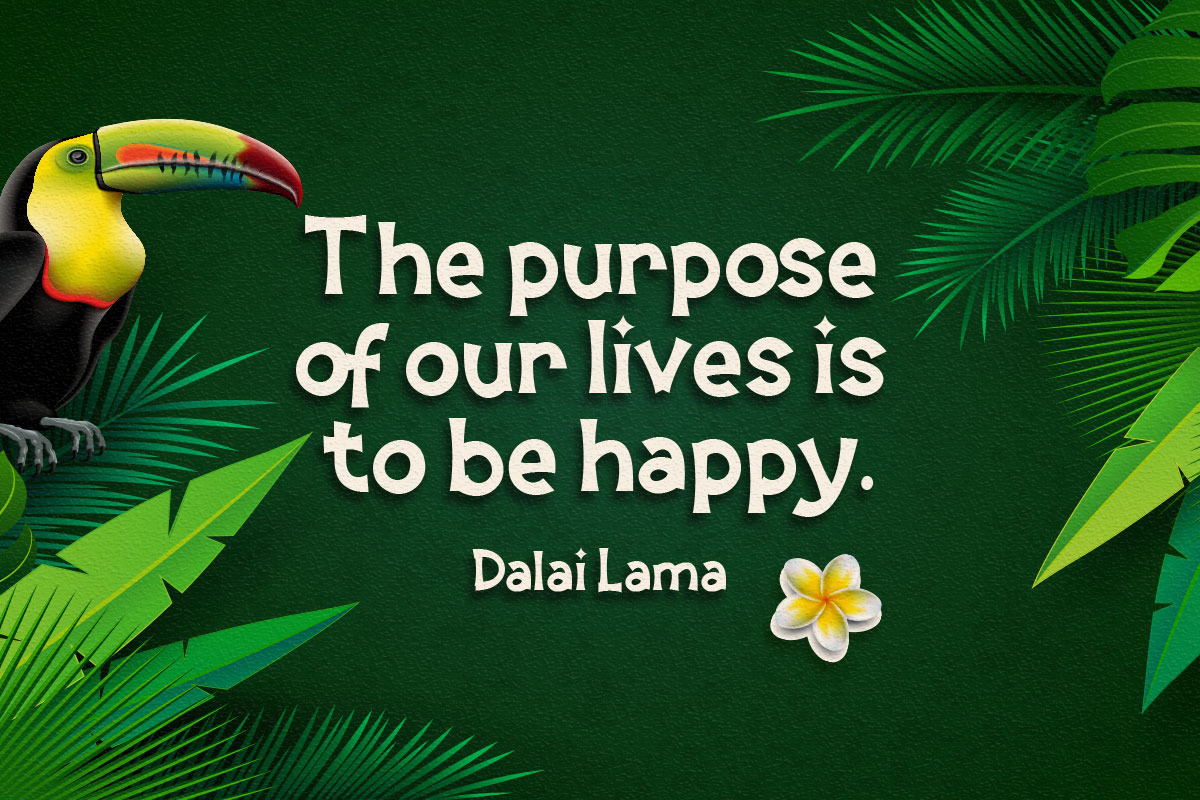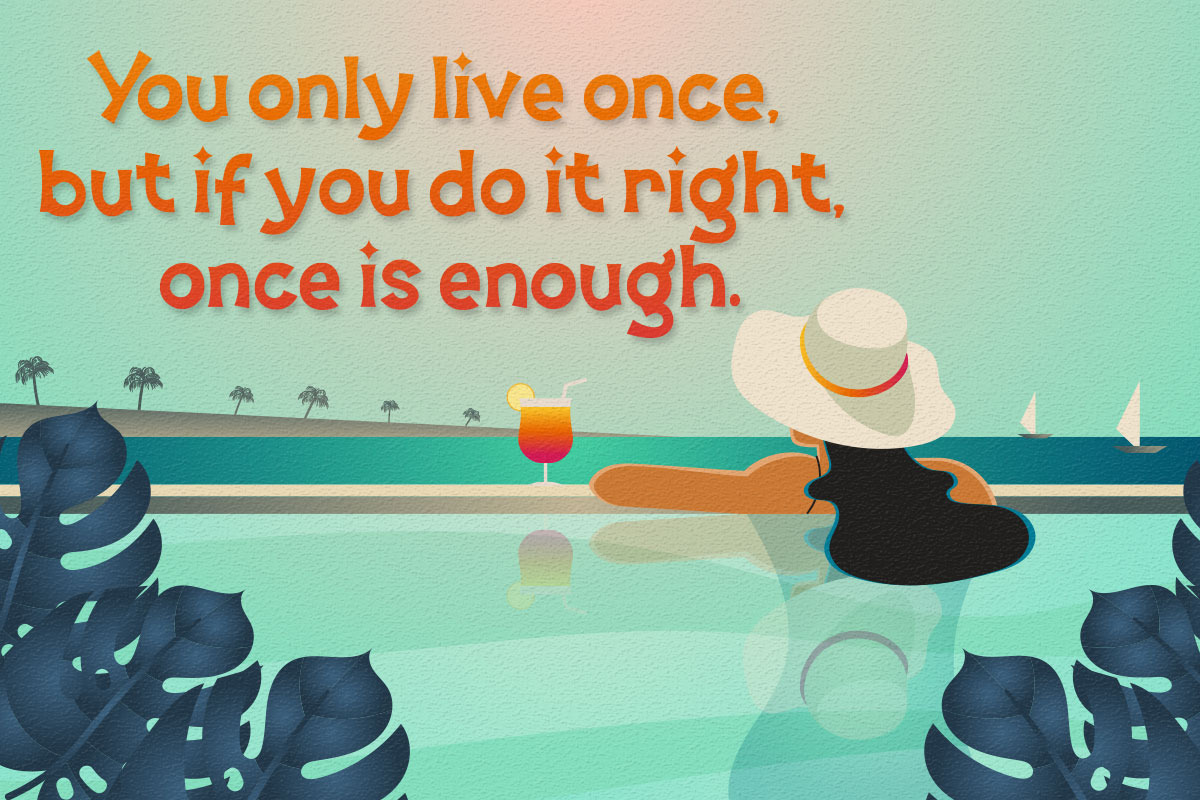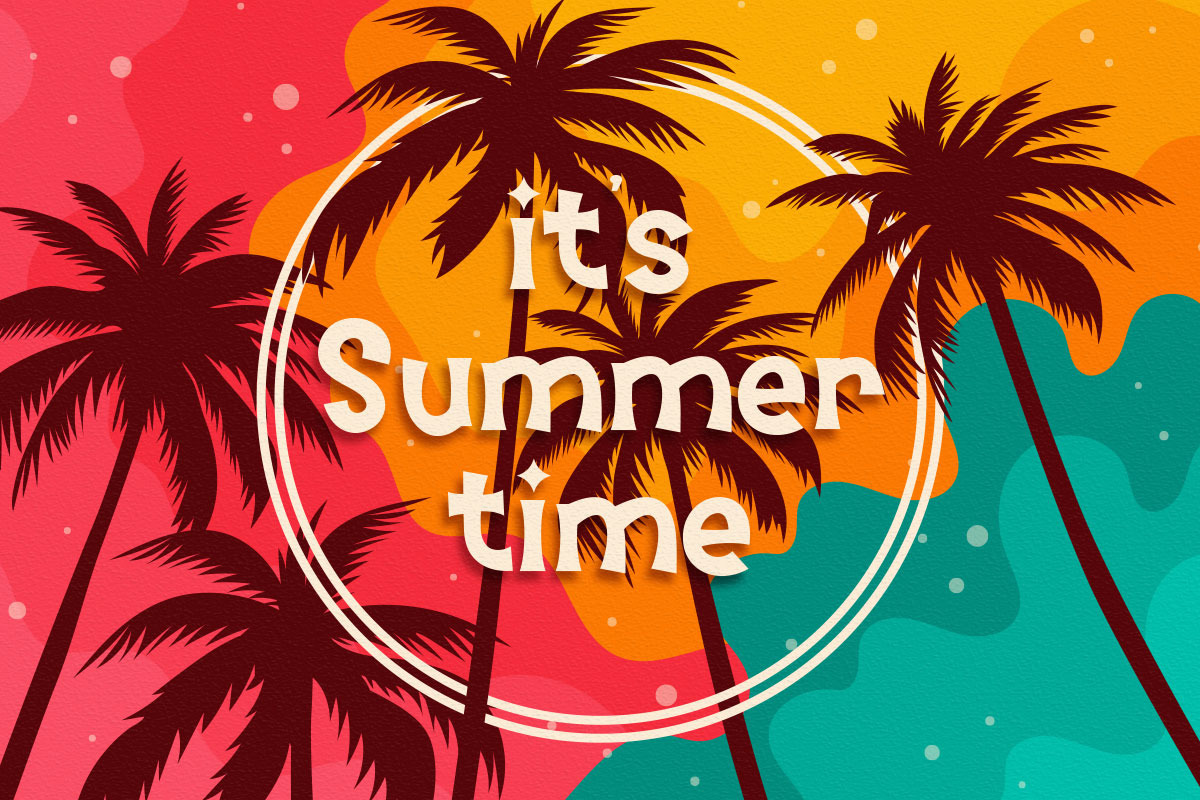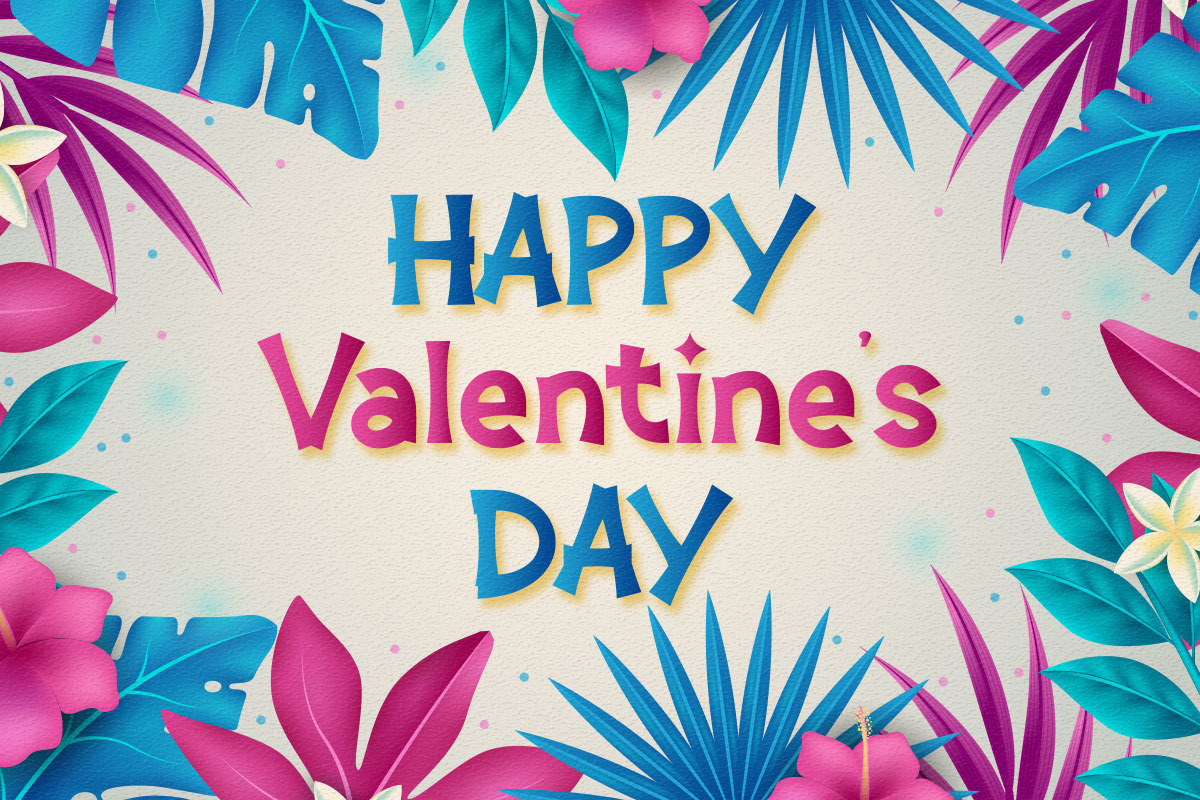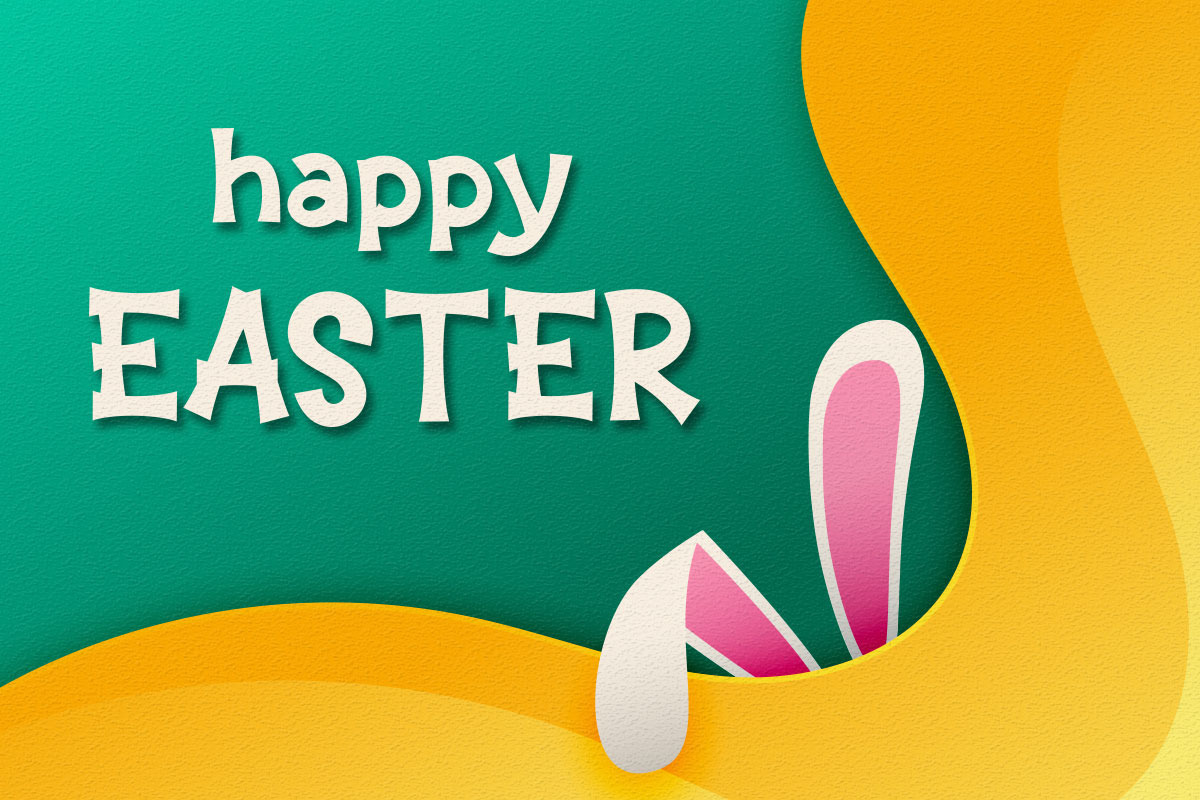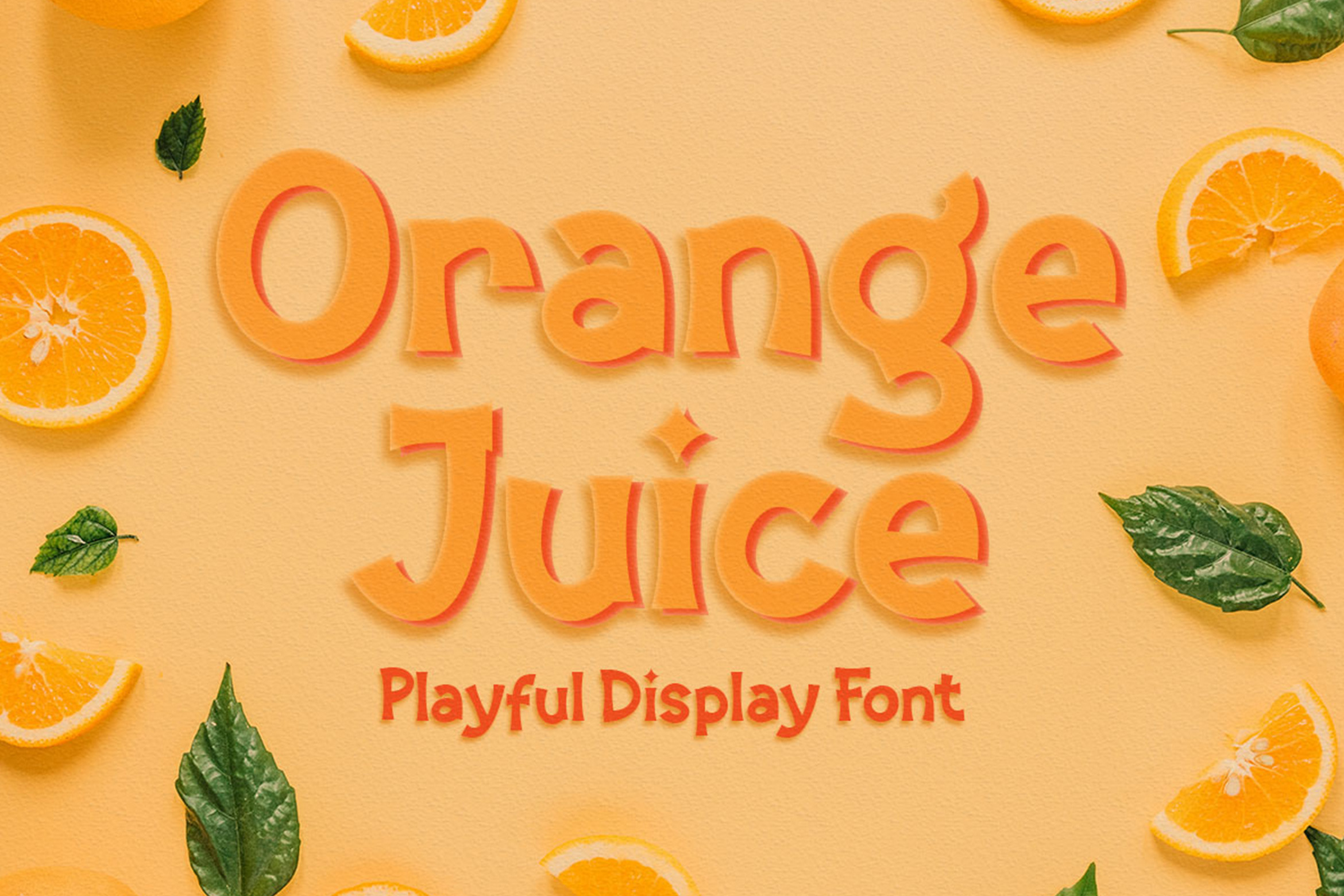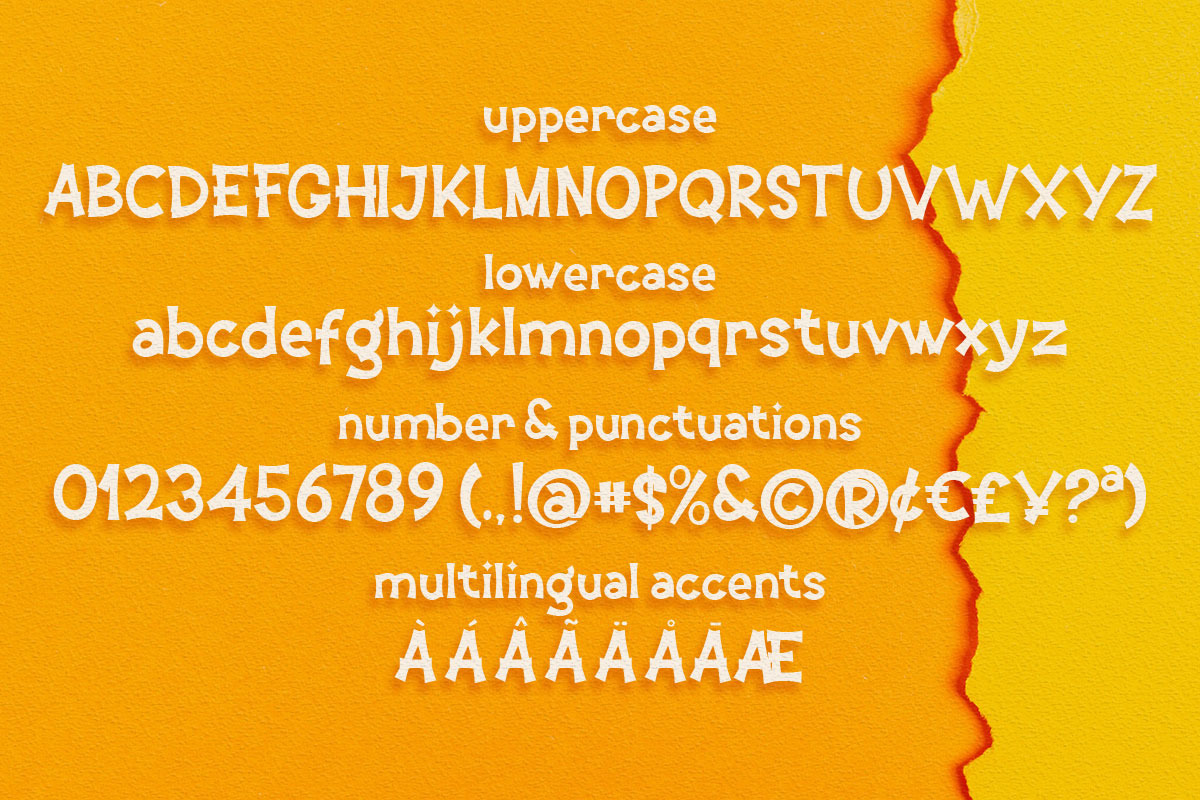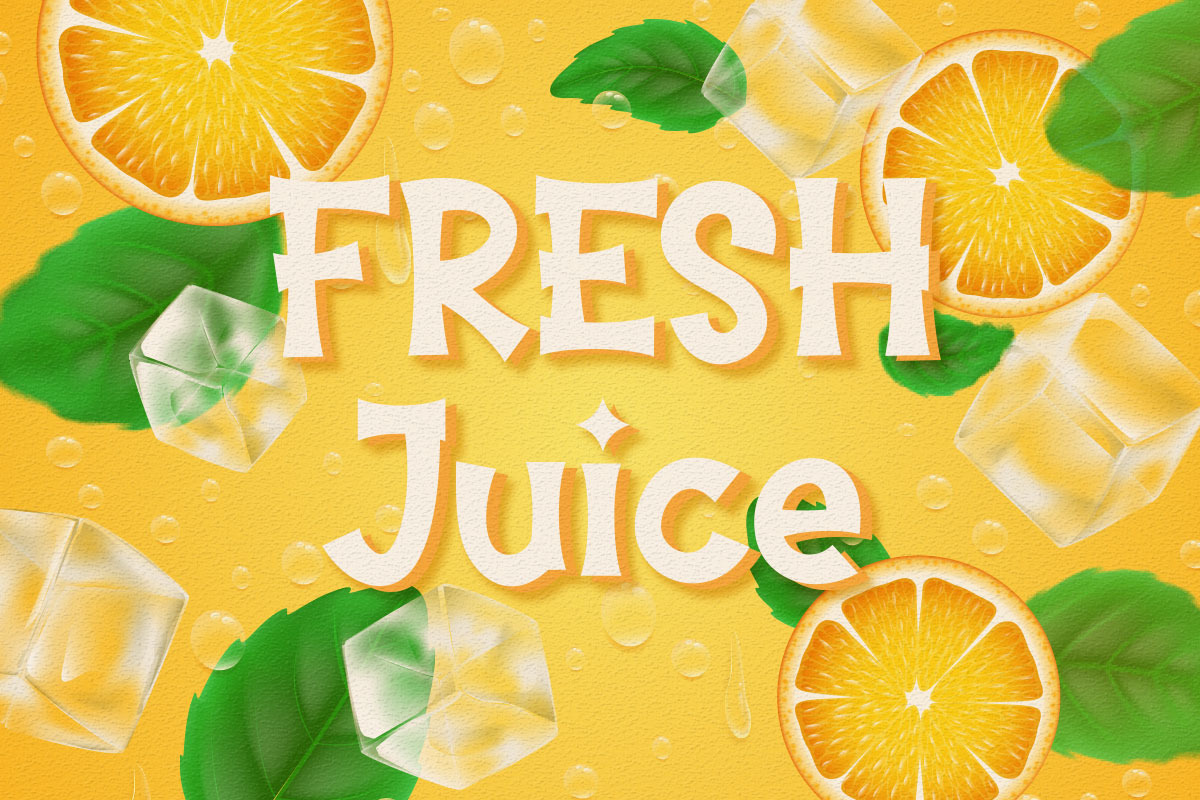
Orange Juice | Display Font
Introducing of our new product the name is Orange Juice.Orange Juice is modern and playful font, this font is a fun theme very good for crafting, cutting, decoration, banner, logos, tshirt , poster, food, branding, quotes, valentine, easter, summer, etc.